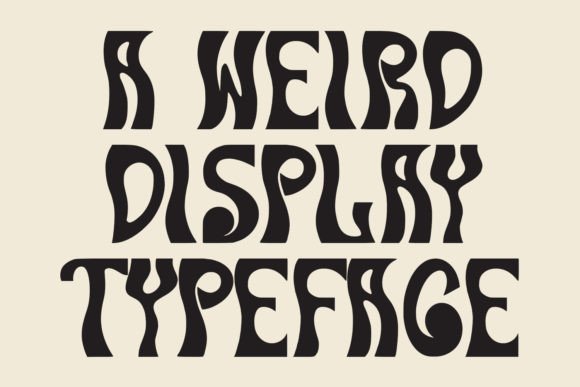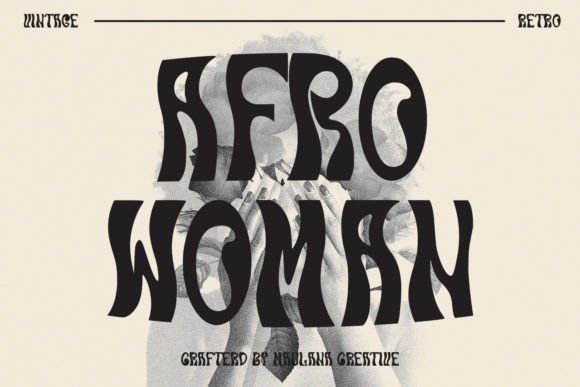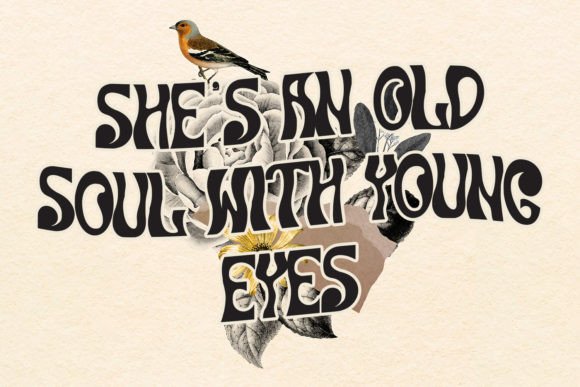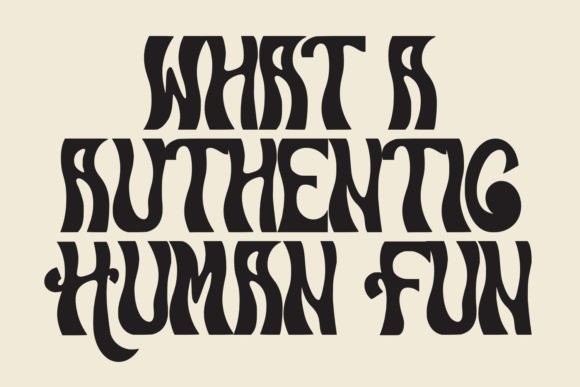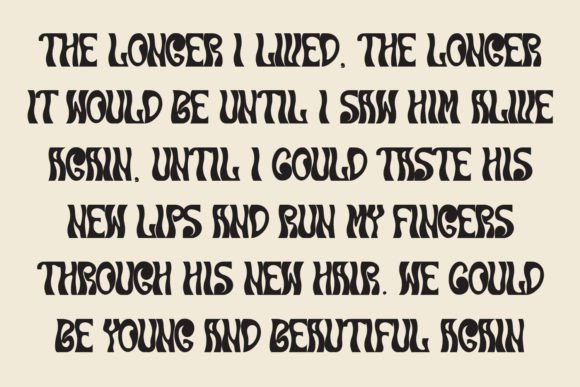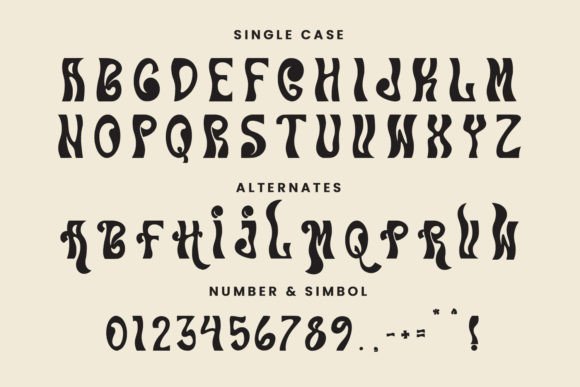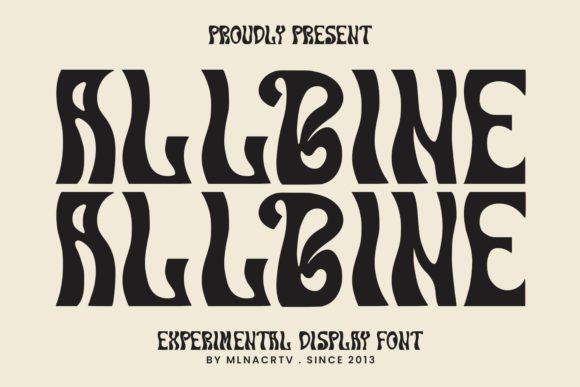
Introducing Allbine Font: The Ultimate Experimental Display Typeface
In the world of typography, a good font can make all the difference in creating stunning visual works. For designers and crafters, finding the perfect font that combines creativity, versatility, and functionality can be a daunting task. However, if you’re looking for a font that can elevate your designs to the next level, look no further than Allbine Font. In this article, we’ll dive into the features, benefits, and uses of Allbine Font, and explore why it’s a must-have for any designer or crafter.
What is Allbine Font?
Allbine Font is an experimental display typeface that boasts a unique and playful character set. With a bit of ligature and alternates, this font is designed to add a touch of creativity and whimsy to any design project. Whether you’re working on a logo, social media graphics, movie titles, book titles, or even long texts, Allbine Font is the perfect choice. Its experimental nature makes it ideal for designers who want to push the boundaries of typography and create something truly unique.
Key Features of Allbine Font
So, what sets Allbine Font apart from other fonts? Here are some of its key features:
- Multilingual Support: Allbine Font supports over 100 languages, making it a versatile choice for designers who work with clients from diverse linguistic backgrounds.
- Ligatures and Alternates: The font features a range of ligatures and alternates, allowing designers to add a touch of personality to their work.
- Script and Serif Compatibility: Allbine Font pairs well with both script and serif fonts, making it an excellent choice for secondary text fonts.
- Display and Body Text: Whether you need a font for display purposes or body text, Allbine Font is optimized for both.
Uses of Allbine Font
Allbine Font is an incredibly versatile font that can be used in a wide range of design projects. Here are some ideas to get you started:
- Logo Design: Create a memorable brand identity with Allbine Font’s unique character set.
- Social Media Graphics: Add a touch of personality to your social media graphics, posts, and stories.
- Movie and Book Titles: Use Allbine Font to create eye-catching titles for movies, books, and other publications.
- Long Text and Body Copy: The font’s clarity and readability make it suitable for longer texts, such as articles, blog posts, and website content.
Benefits of Using Allbine Font
So, why should you choose Allbine Font for your design projects? Here are some benefits:
- Creativity Unleashed: Allbine Font’s experimental nature and unique character set will inspire you to create something truly original.
- Time-Saving: With its multilingual support and compatibility with script and serif fonts, you’ll save time and effort in finding the perfect font.
- Professional Results: Allbine Font is designed to deliver professional-looking results, whether you’re working on a personal project or a client’s brief.